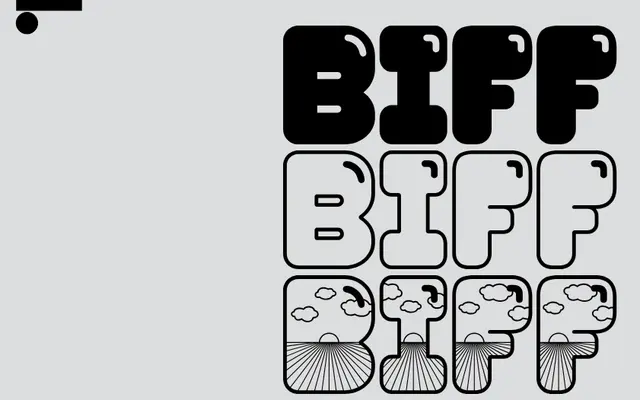
LL BIFF
Lineto · Jonas Williamsson, Anatole Couteau · 1999
An uppercase display face drawn from New York throw-up graffiti letterforms, originally created in 1995 and revised by Anatole Couteau in 2022 with a companion outline cut.
Originally drawn by Jonas Williamsson in 1995 as part of a commissioned identity project and published by Lineto in 1999, LL BIFF takes its forms directly from early New York graffiti throw-up lettering. The name derives from the Swedish adjective 'biffig', meaning muscle-bound or chunky, and the revised 2022 version sees Couteau redrawing the original outlines, completing the character set and adding an outline variant with graphic illustrations nodding to Michel Jarland's Mecanorma typeface Astral (1971). It remains uppercase only, suited to headlines, posters and identities that want weight and swagger.
An uppercase-only display face derived from New York throw-up graffiti letterforms, chunky and bold by design, placing it firmly in expressive display territory rather than any text category.